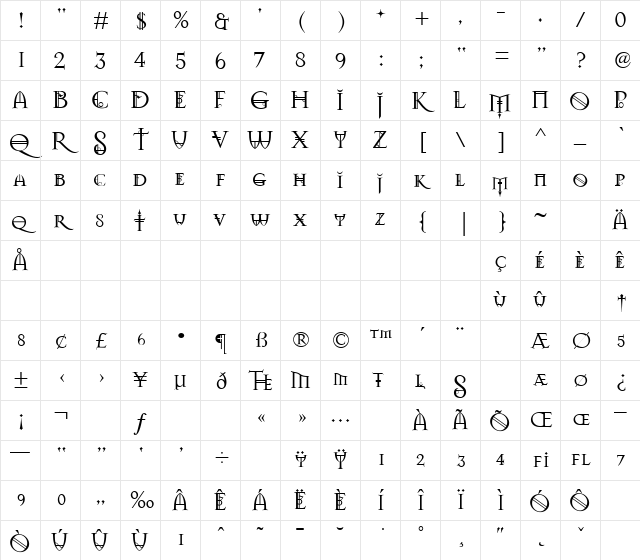
Splendors Alt Regular
Design Context for Splendors Alt
Splendors Alt is a composed and adaptable typeface that performs quietly and consistently across a wide range of design contexts.